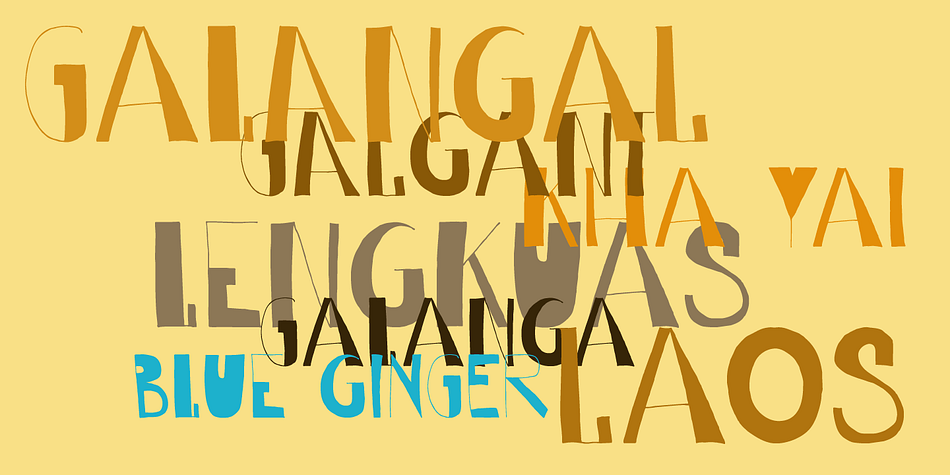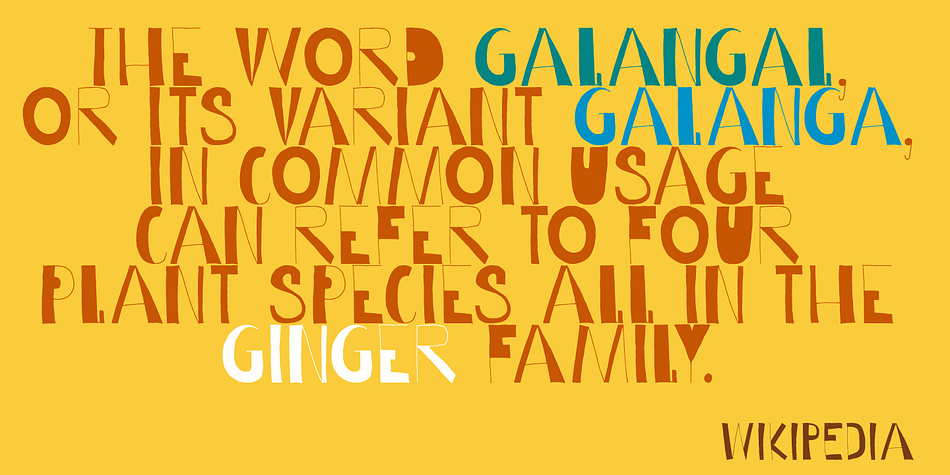
Galangal is a novelty and kids font published by Hanoded.
Galangal, or Laos, is a root belonging to the ginger family, which is used in Indonesian cuisine. Since this font has the same design characteristics as Kurkuma, I thought naming it after a root was quite appropriate.
Galangal is pretty unique, with thin and fat areas, bizarre glyphs and rough edges. Upper and lower case are fully interchangeable and the typeface comes with a full range of diacritics.